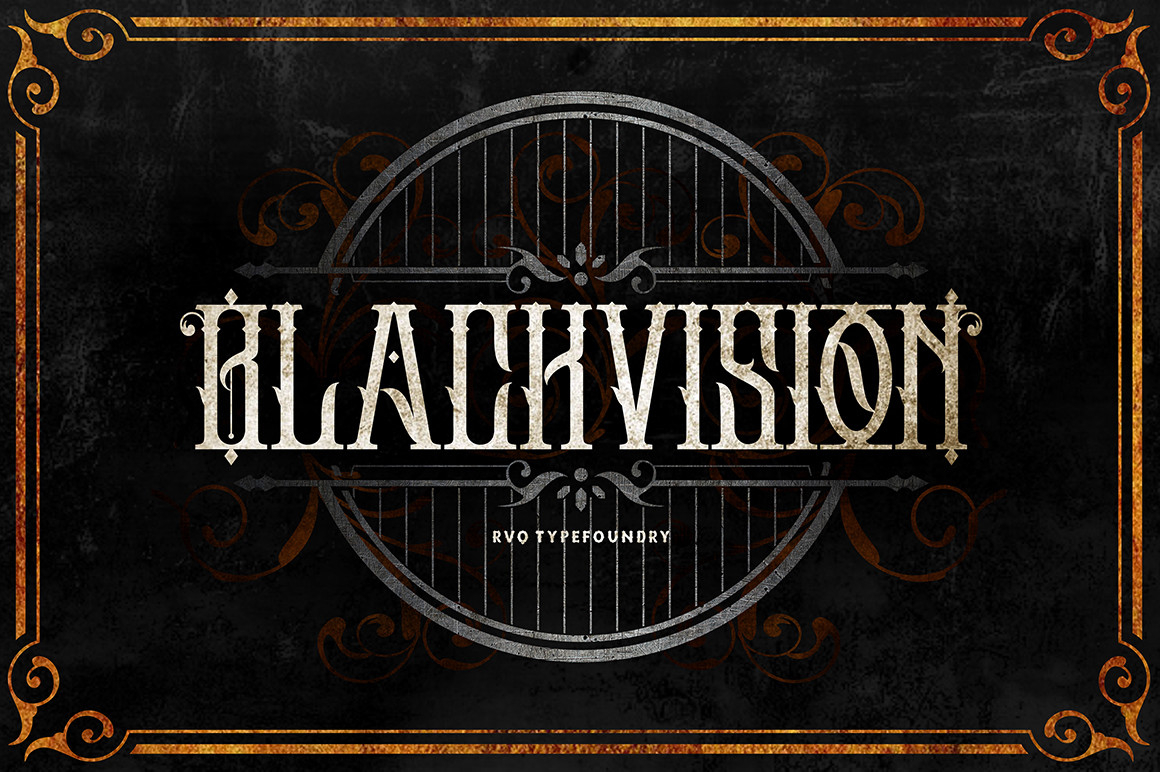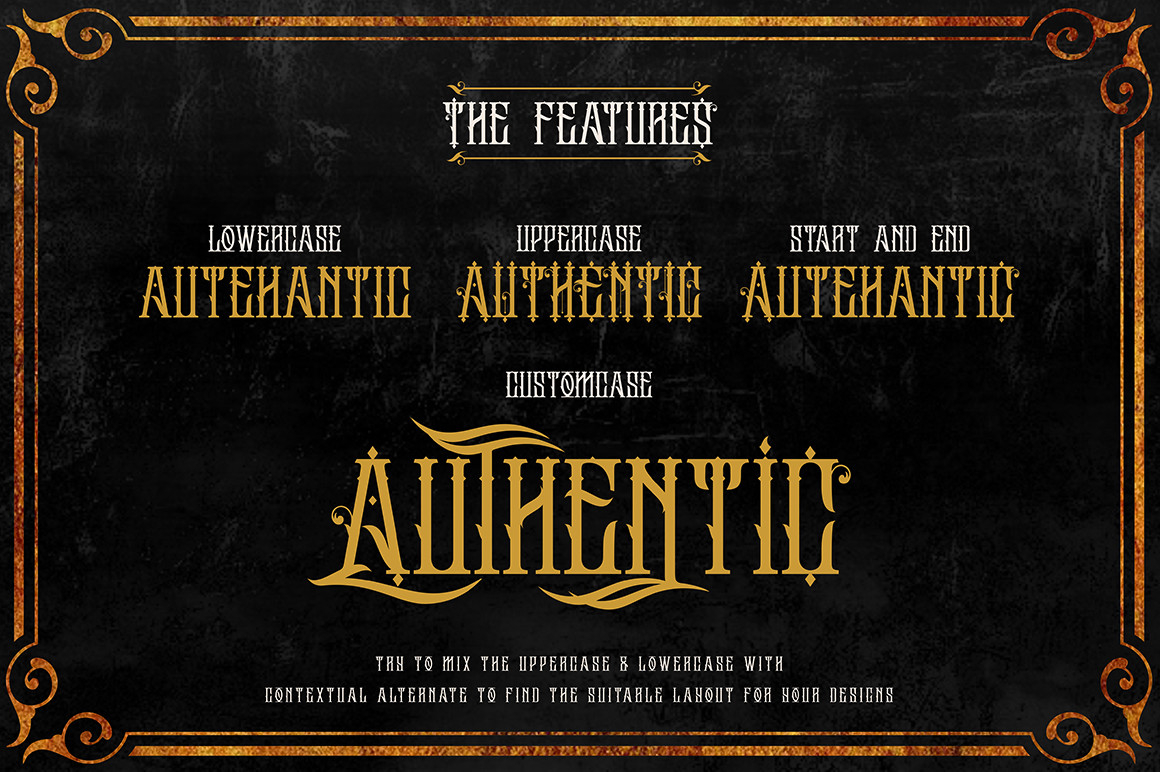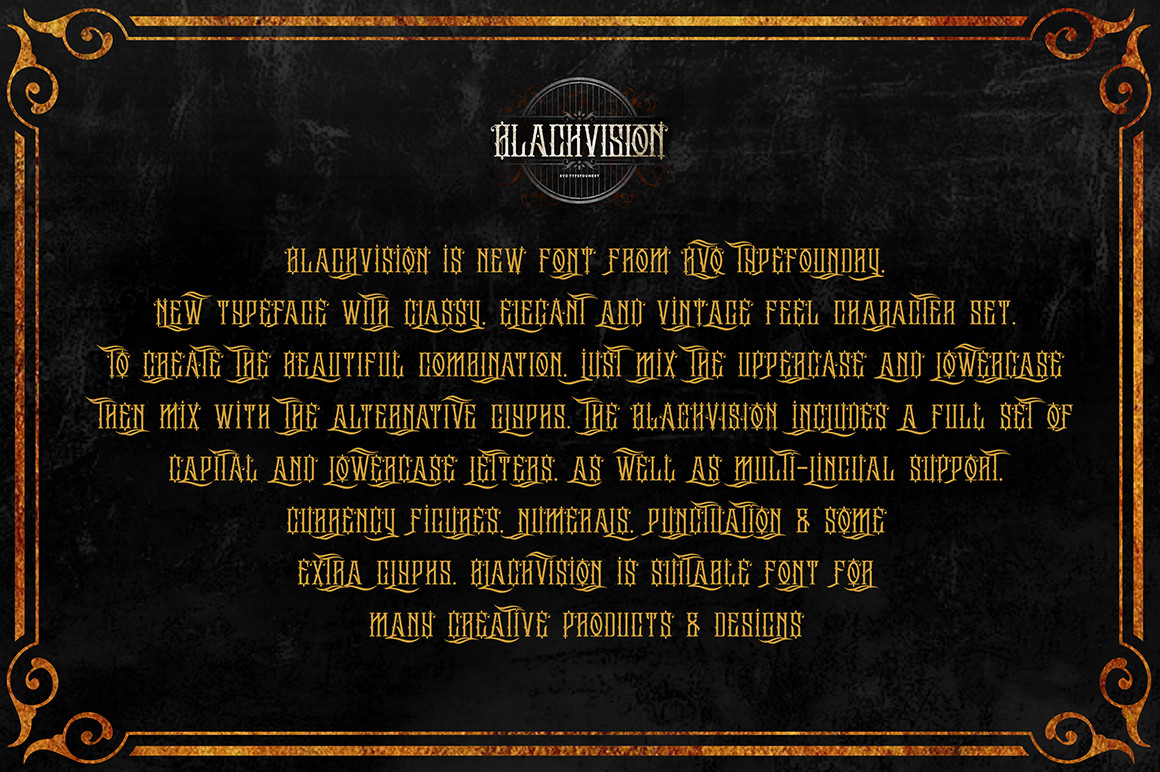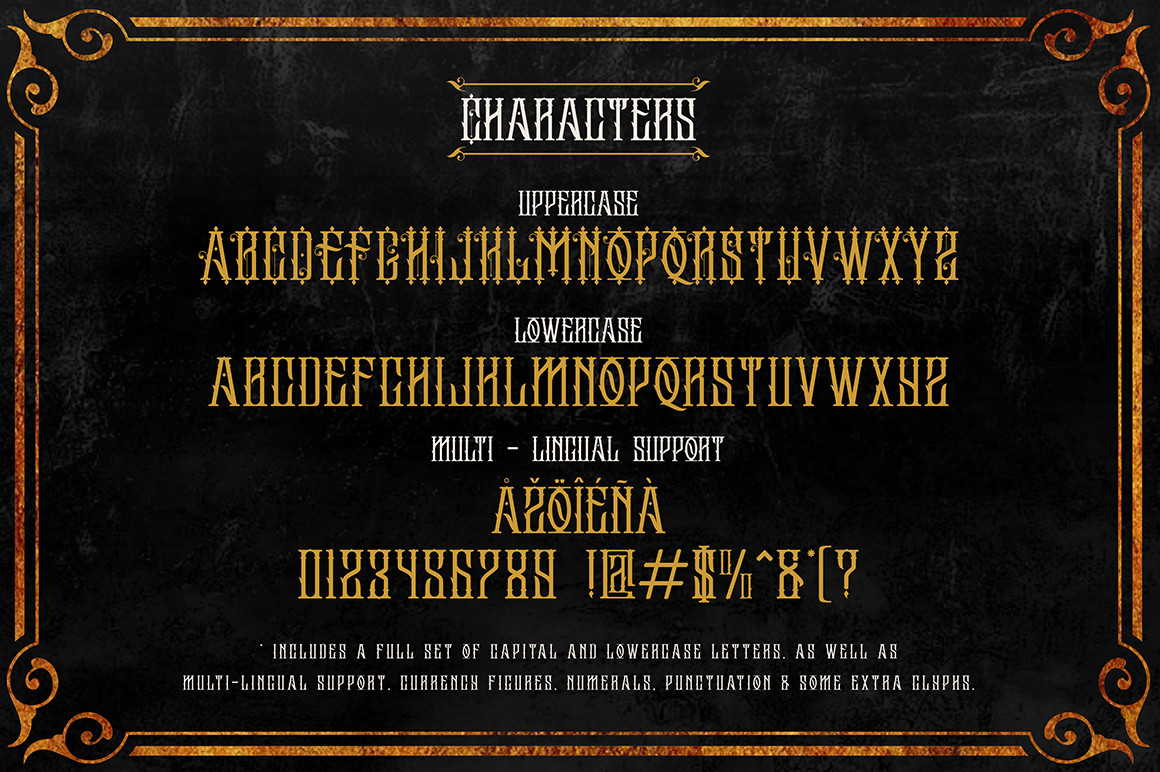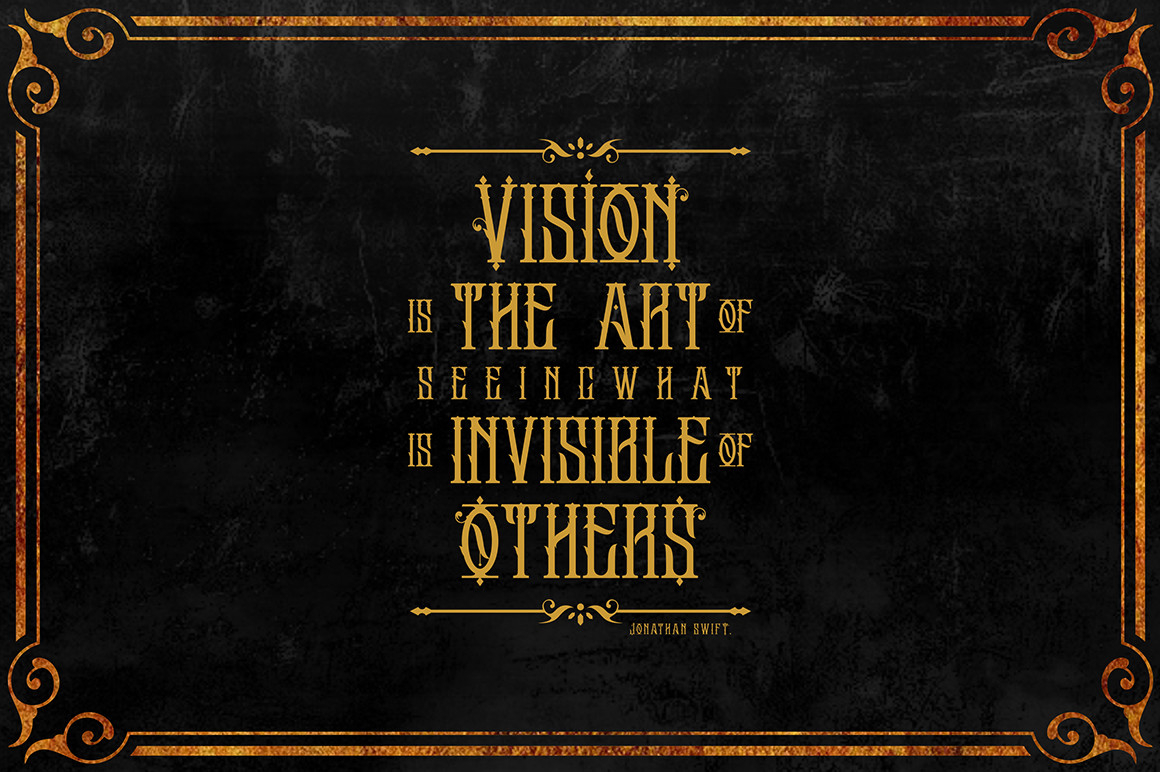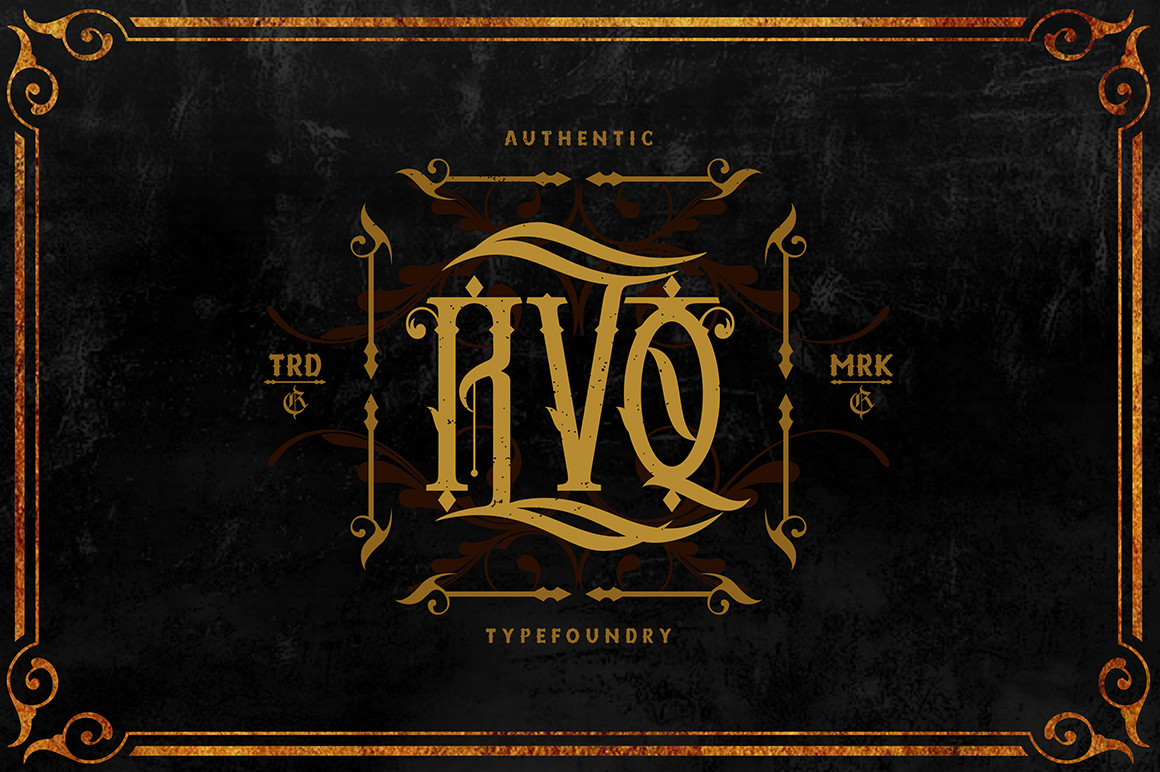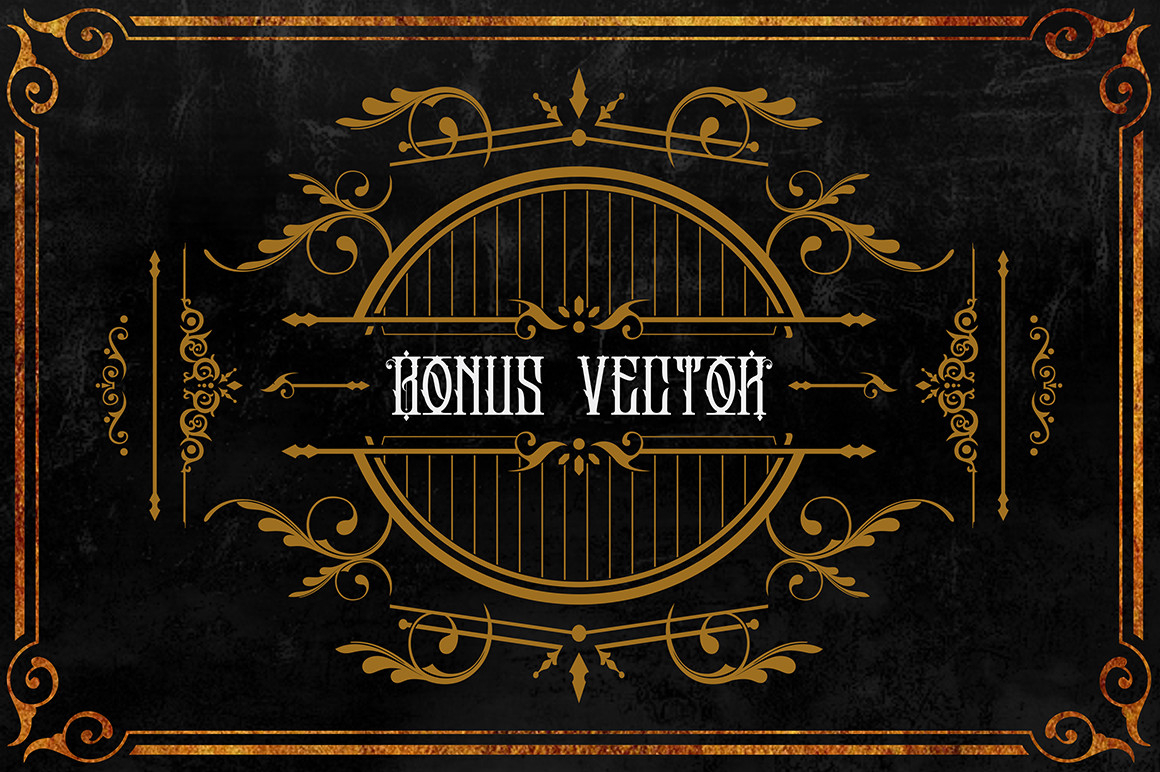
Black Vision Font
About Black Vision Font
Black Vision is a bold blackletter font that will make your text stand out. Its heavy strokes and distinctive, old-style letterforms are sure to capture your audience’s attention. Perfect for creating an impactful and dramatic design.